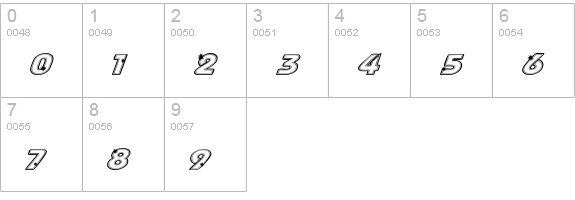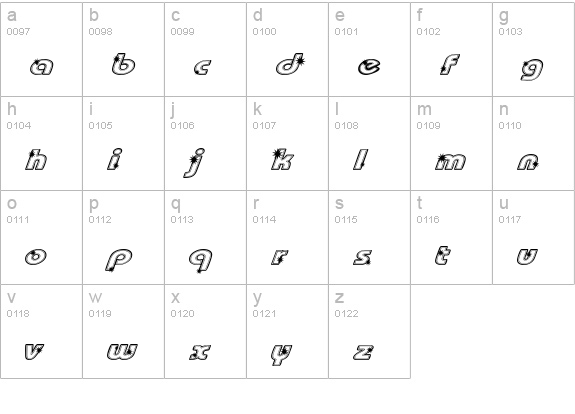
Groovalicious Tweak Font Details
Introducing the Groovalicious Tweak font, a dynamic and vibrant typeface that is sure to add a touch of flair to your projects. This font exudes a sense of energy and playfulness, making it perfect for designs that need a fun and modern twist. Featuring bold and whimsical letterforms, Groovalicious Tweak is a versatile font that can be used for a variety of design purposes, from branding to social media graphics to event posters. Its unique style will make your text stand out and grab attention. The best part? Groovalicious Tweak is completely free to download at FontsMarket.com. Whether you're a designer looking to expand your font library or a hobbyist in need of a fresh typeface, this font is a fantastic choice. Don't miss out on the opportunity to add Groovalicious Tweak to your collection and inject some groovy vibes into your next project.